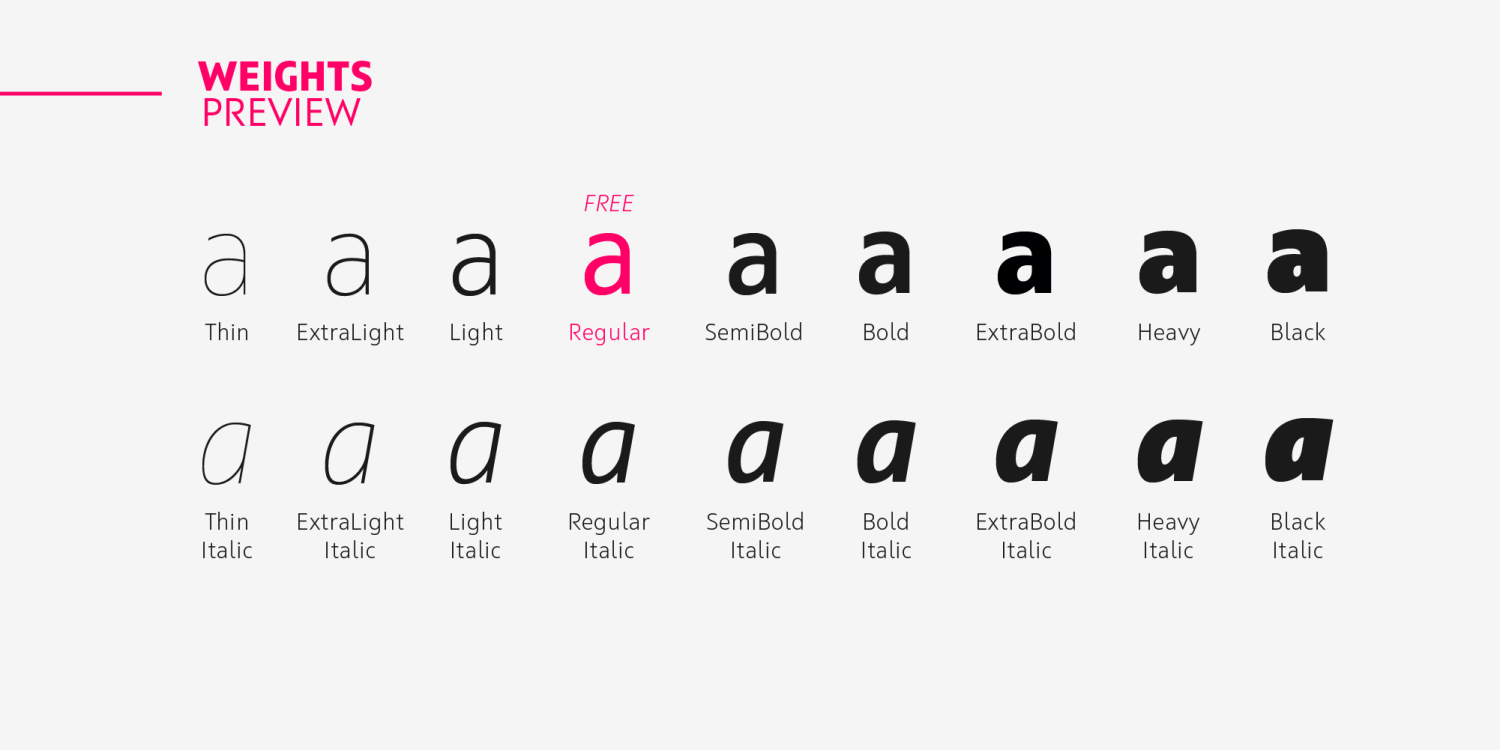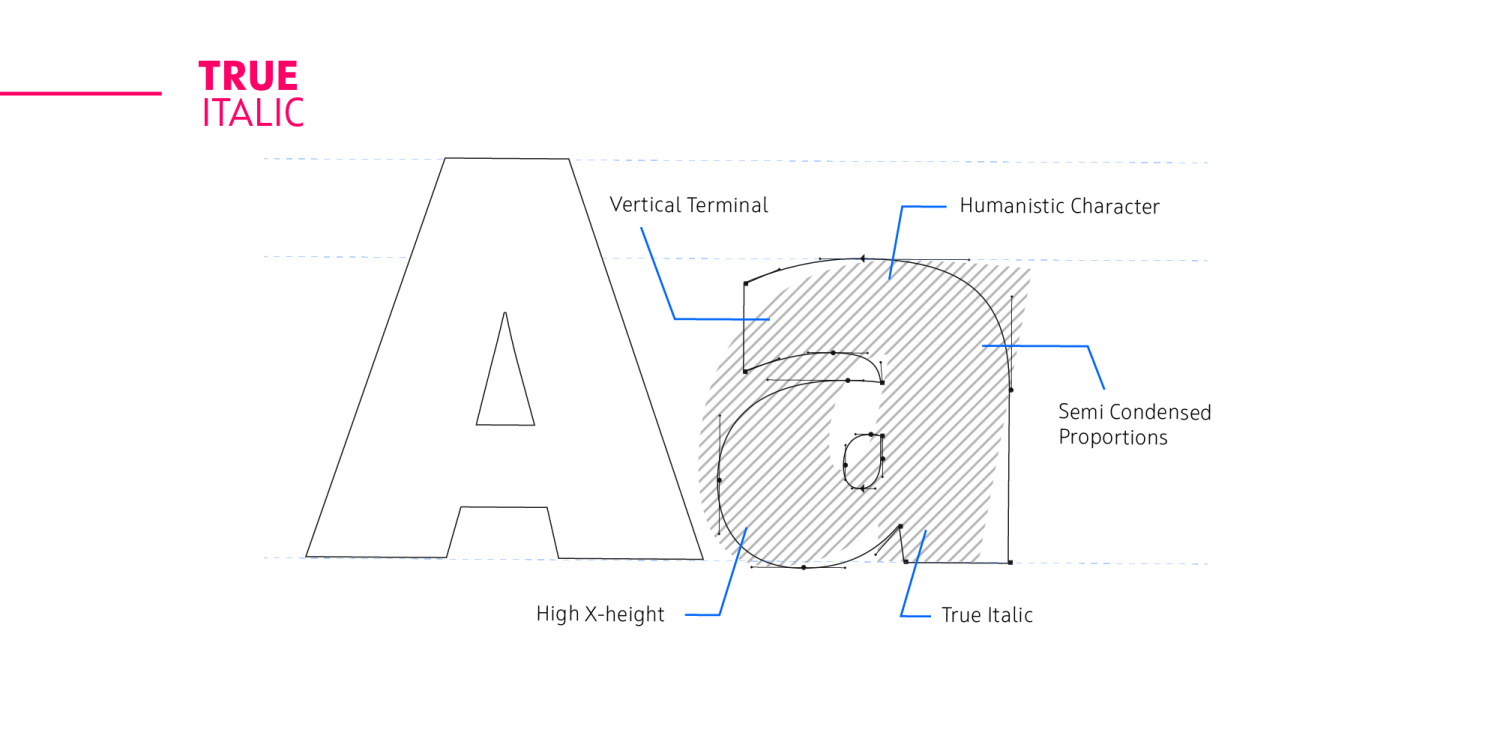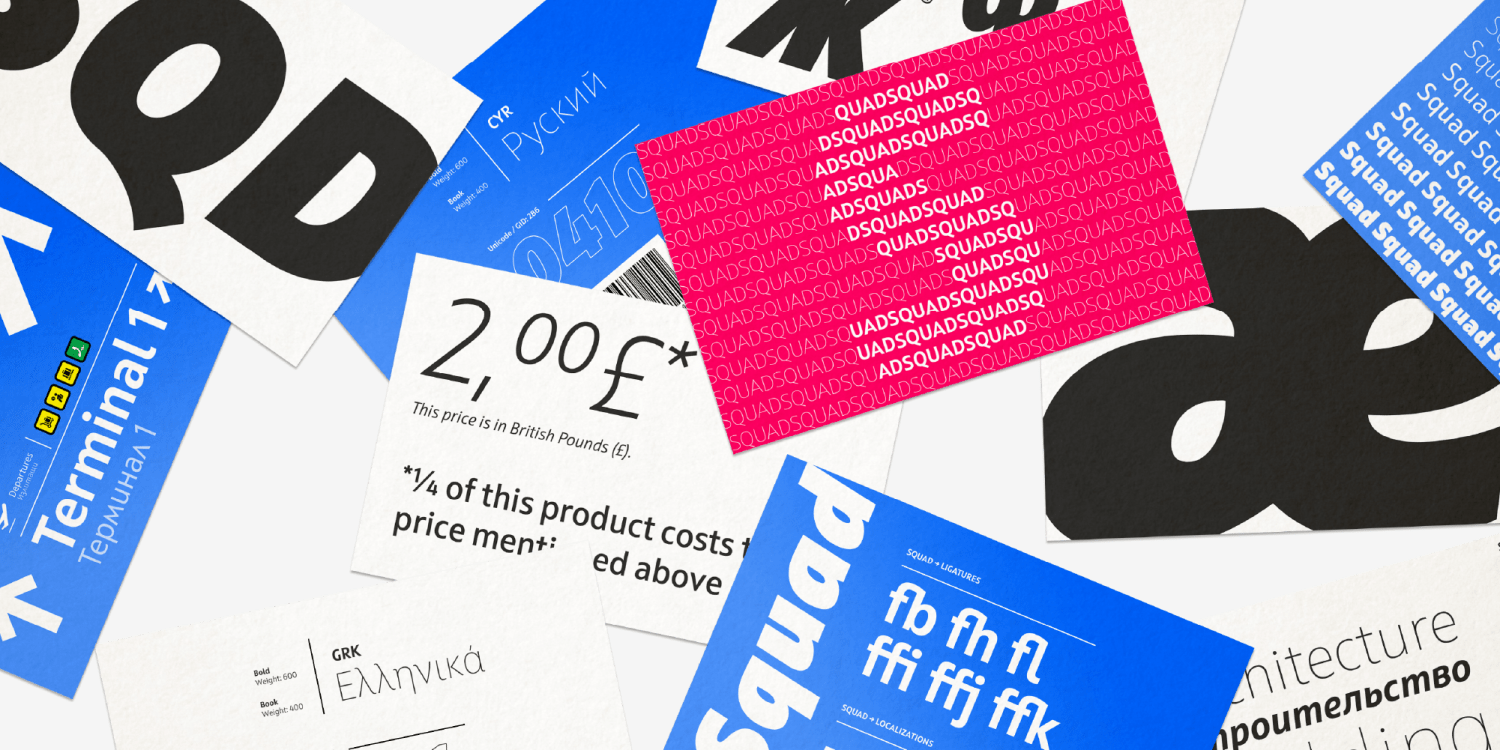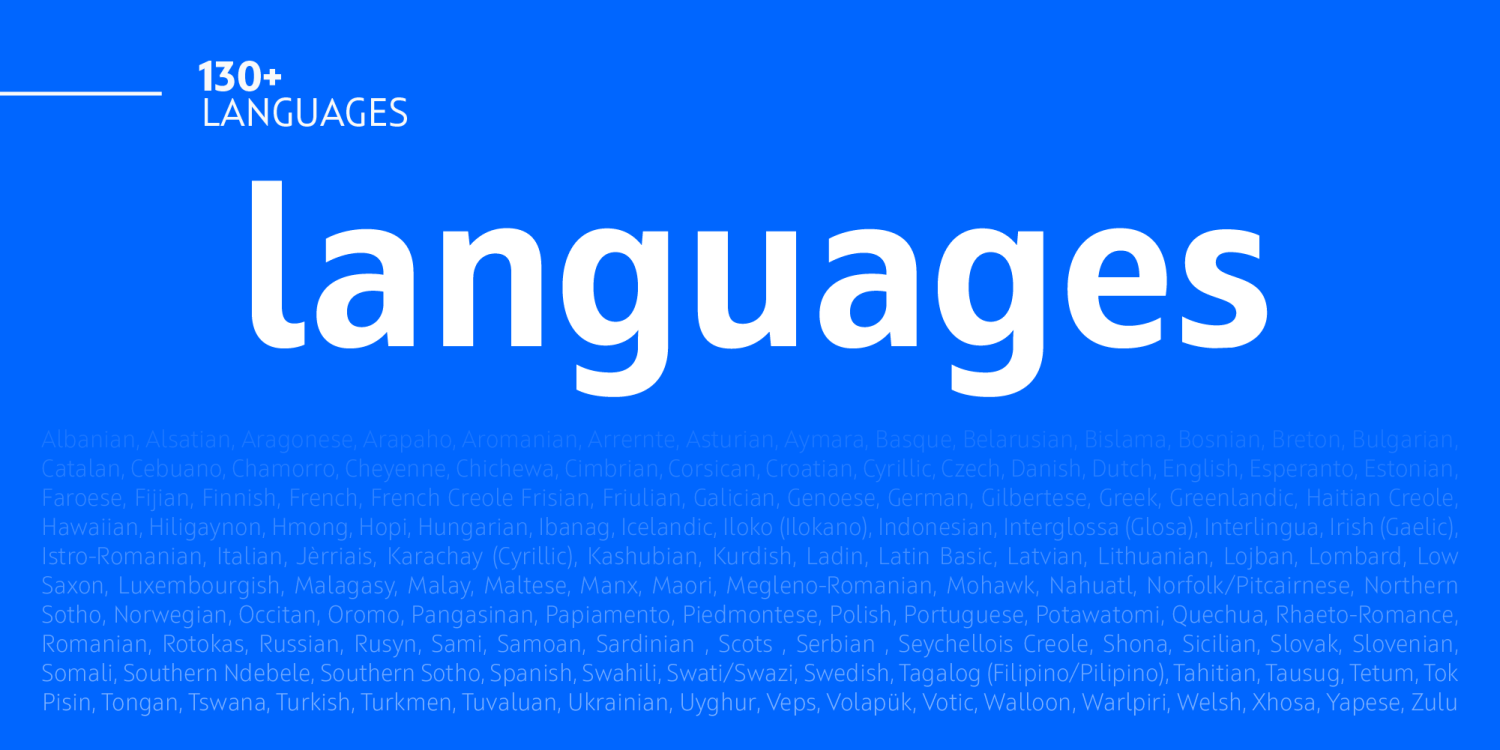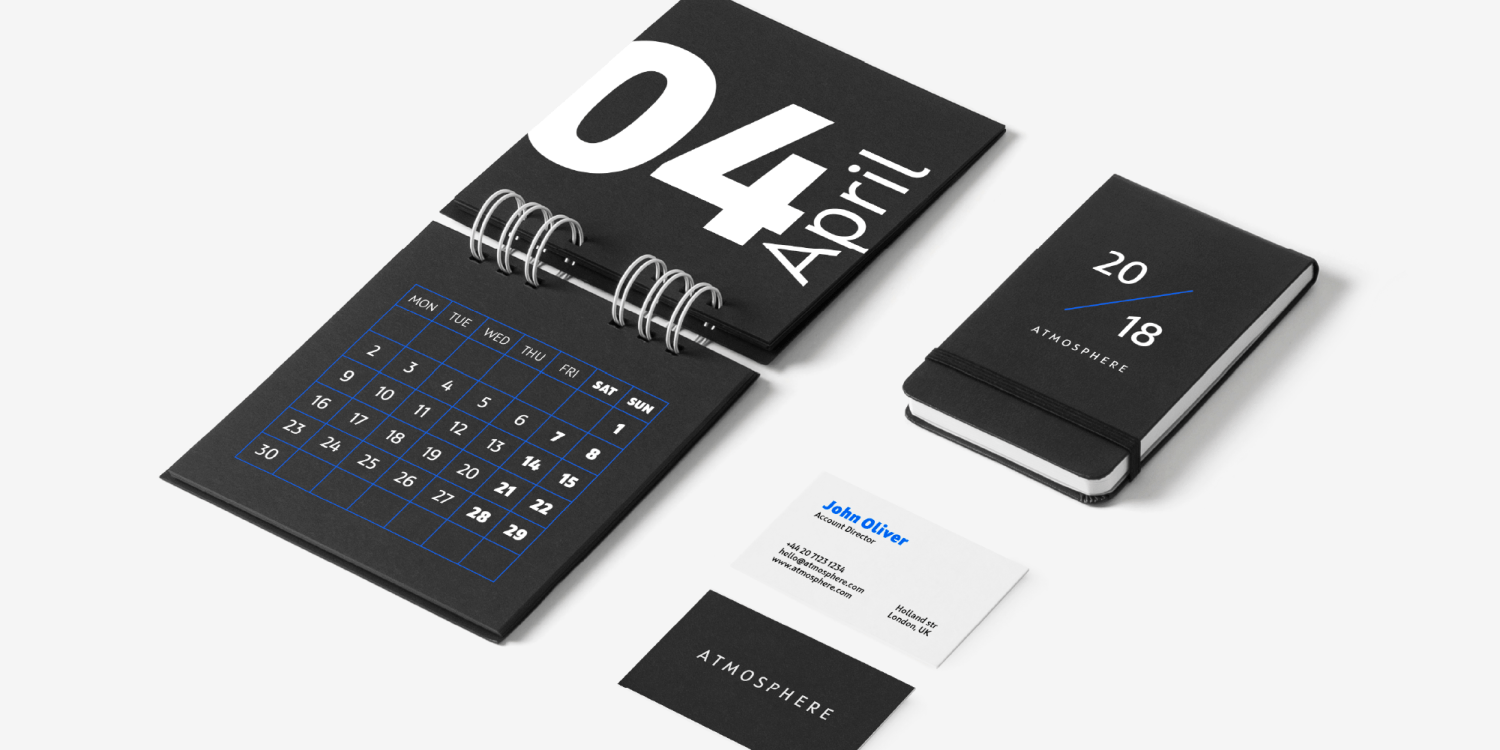
Squad
Font Family by Fontfabric
The Squad Font Family is a meticulously crafted sans serif typeface inspired by the perfectionist style of legendary designer Adrian Frutiger. Skillfully blending timeless humanist heritage with contemporary simplicity and robust functionality, Squad was conceived with subtle detail and optimal legibility in mind.
Why Choose Squad?
Squad is designed for exceptional adaptability across virtually any design purpose. Its semi-condensed proportions, balanced rhythm, and vivid presence make it a versatile yet distinctive choice for the diverse demands of modern design—delivering a typeface that’s classic in clarity and fresh in execution.